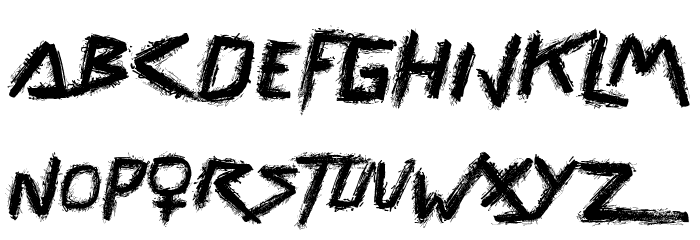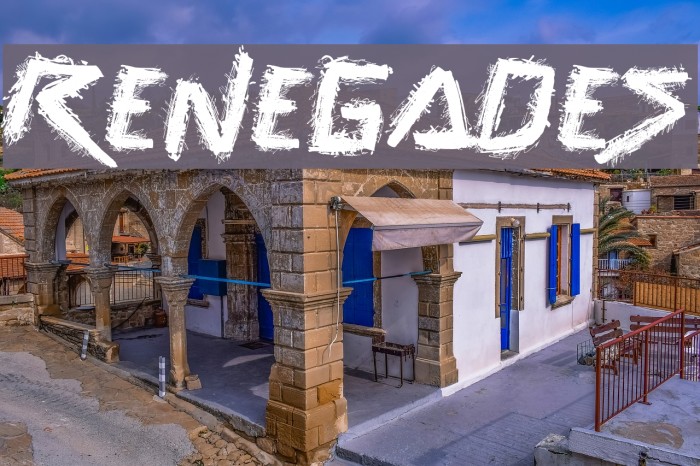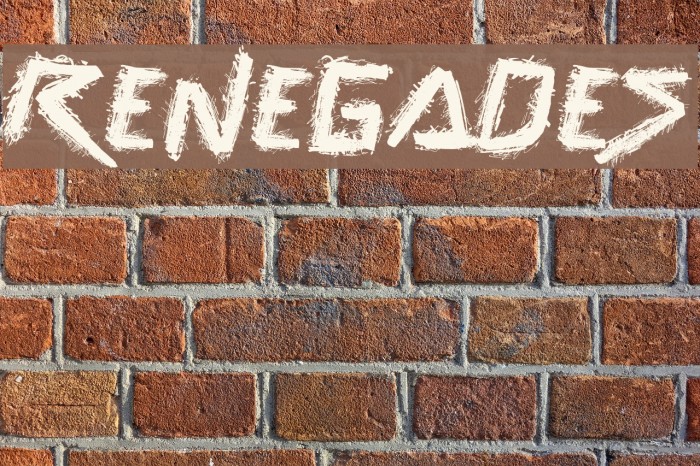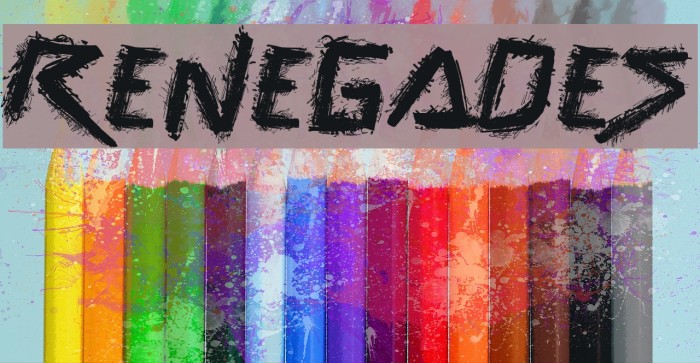
Renegades Font
This font features a rugged, distressed style with a hand-drawn appearance, reminiscent of graffiti or street art. The characters are bold and irregular, with a rough texture that gives them an edgy, rebellious feel. The strokes are uneven, with varying thickness that adds to the chaotic and dynamic look. This font is highly decorative, making it suitable for projects that require a strong, impactful visual statement. The uppercase and lowercase letters maintain a consistent style, while the numbers and special characters complement the overall aesthetic.
A bold, distressed font with a graffiti-inspired, hand-drawn look.
- Proposed Projects: Ideal for album covers, posters, streetwear branding, or any project needing an edgy, rebellious vibe.
- Overall Style: Modern, Urban